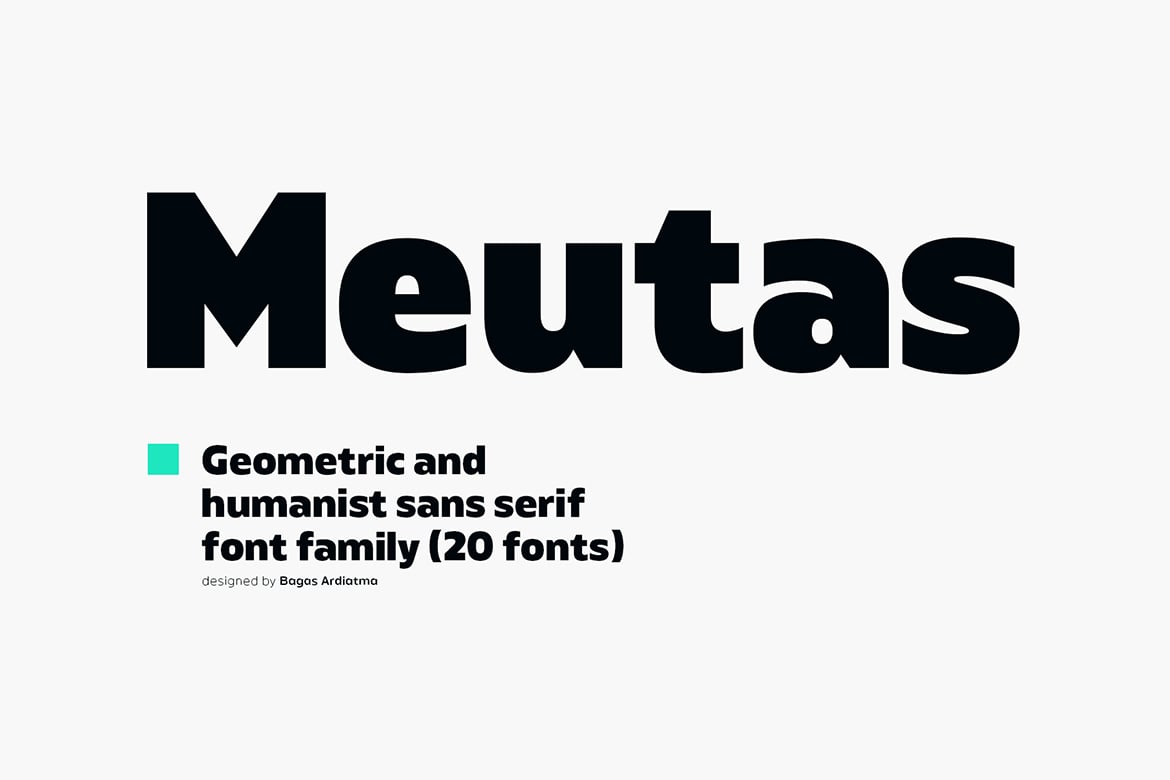
Meutas Font
Please note that Meutas Font must be purchased for commercial use. You are welcome to download and test this font for personal and non-commercial projects at no cost. This versatile, modern sans serif font family is perfectly suited for an extensive range of creative and corporate projects, including demanding editorial design, cohesive brand identity creation, responsive website body and display text, dynamic application interfaces, game titles, and any design that requires a precise, professional structure blended with appealing humanist warmth.
The reason Meutas Font is genuinely exciting is its sophisticated balance between geometric precision and humanist readability. It features clean, optimized forms designed to maximize thickness while maintaining balance, making it dynamic and attractive at all sizes. This hybrid approach ensures exceptional performance whether used for large, impactful headlines or smaller, continuous body text. Furthermore, the inclusion of alternative glyphs provides optional visual interest, making every project you work on easier and more awesome!
The Meutas Font family is exceptionally expansive, providing a massive toolkit for designers, often coming with 10 distinct weights and a matching Oblique style for each, resulting in 20 total styles. This vast range covers everything from Thin to Black, offering unparalleled control over typographic hierarchy. For a strong, dynamic, and incredibly comprehensive sans serif family, secure your Meutas Font Free Download today.